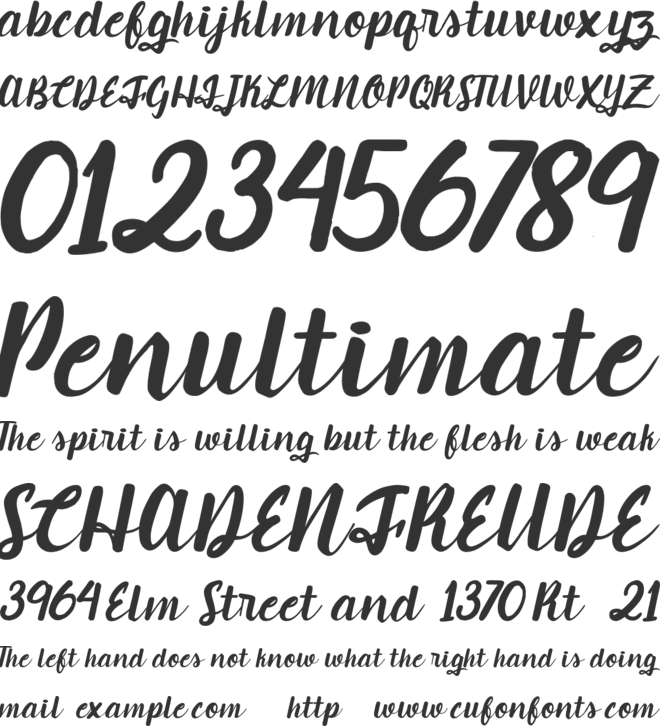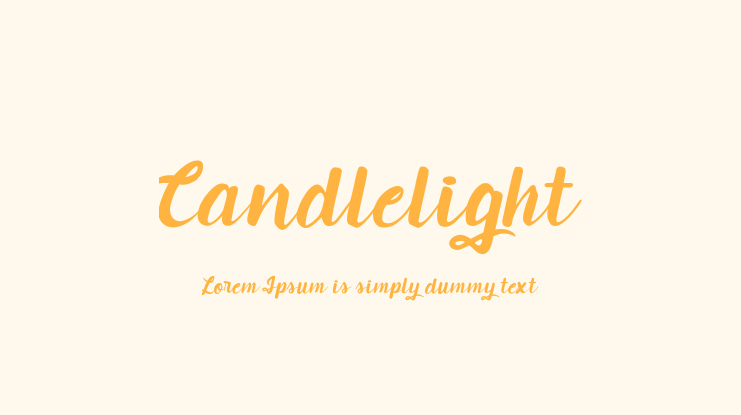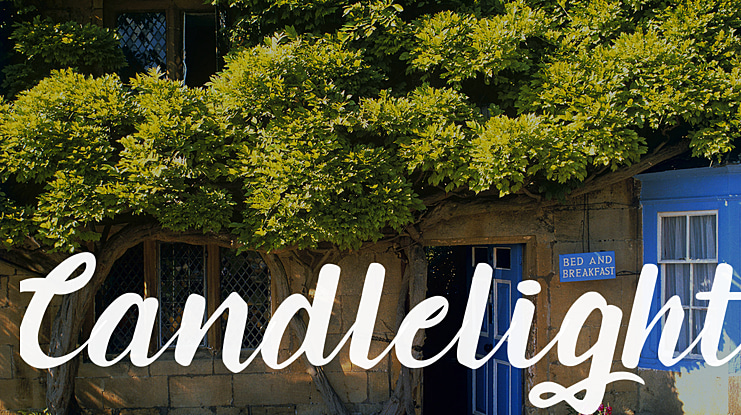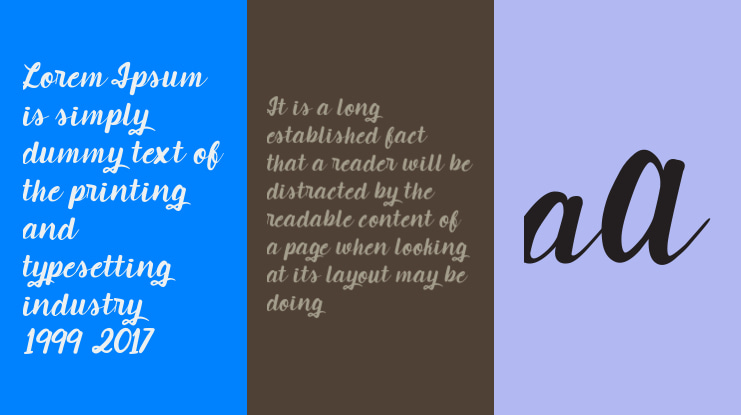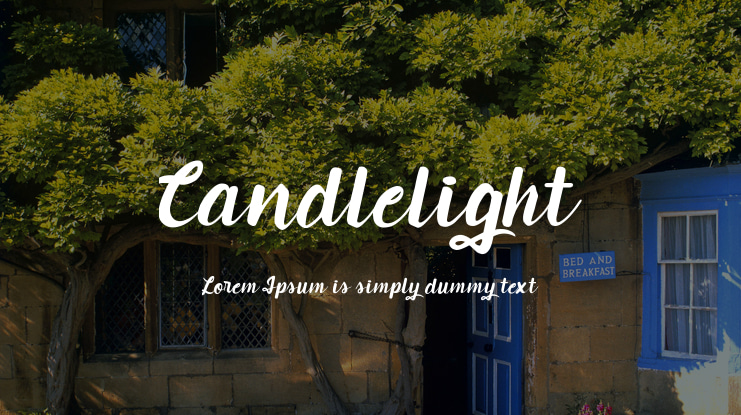
Candlelight Font
A bold typeface always needs a sweet script. Candlelight font is a perfect partner for everything! Its smooth edges and girly style is perfect for quotes and messages. And of course, like the Travel Goals font, it is also great for logo and identity, branding, blog/vlog, magazines, merchandise, brochures, and etc.